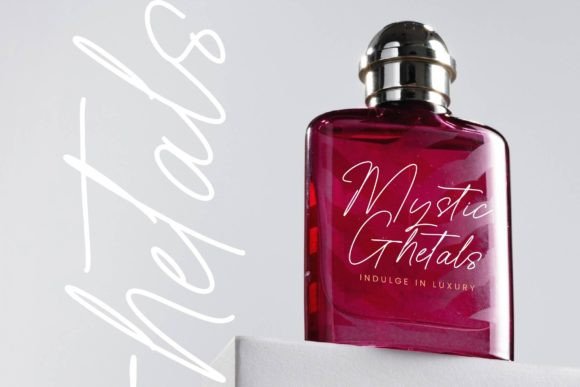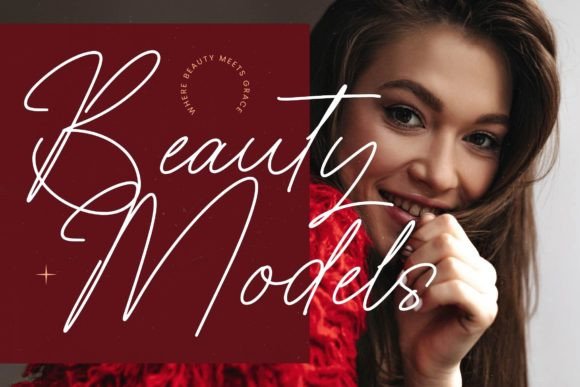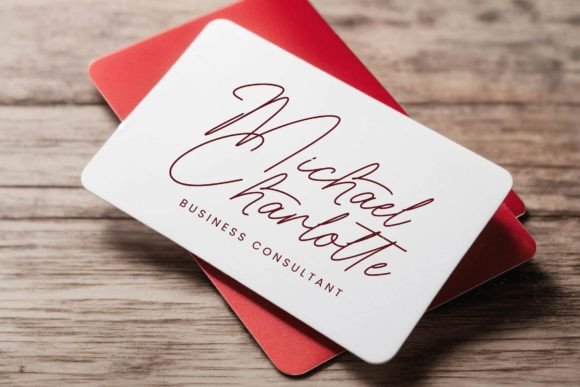
Introduction to Heritage Classic Font
As designers, we’ve all been there – staring at a blank page, trying to bring a vision to life. The cursor blinks, and the pressure mounts. But what if you had the perfect tool to unlock your creativity and make your project shine? Enter the Heritage Classic Font, a luxurious script font that’s about to revolutionize your design workflow.
Imagine having a versatile design resource that’s perfect for any project, from logos to homeware designs, product packaging to book covers. The Heritage Classic Font is that resource, offering a high-quality, transparent background that’s easy to use and customize. With its elegant, modern signature style, this font is sure to elevate any creative project and leave a lasting impression.
Key Features of Heritage Classic Font
- Unique Vintage Style: Heritage Classic Font features a distinctive vintage aesthetic, perfect for creative projects requiring a nostalgic feel.
- High-Quality Design: This font is designed with precision, offering crisp and clear typography that’s ideal for a wide range of applications.
- Transparent Background: The font comes with a transparent background, allowing for easy layering and seamless integration with other design elements.
- Resolution: This font is designed at 300 DPI, making it suitable for print and digital applications at high resolutions.
- Size: The font family includes a range of weights and styles, from Light to Bold, allowing designers to choose the perfect fit for their creative project.
Honest Review: Heritage Classic Font
One of the standout features of this font is its high-quality design. The clear lines and elegant curves make it perfect for creative projects that require a touch of sophistication. I especially love using it for headings and titles, as it adds a level of sophistication to any design.
- High-quality design with clear lines and elegant curves
- Perfect for creative projects that require a touch of sophistication
- Limited character set, may not be suitable for long blocks of text
- No transparent background option, may not be ideal for designs that require a background overlay
Overall, I’m impressed with the Heritage Classic Font. It’s a great addition to any design library, and its high-quality design makes it perfect for creative projects. While it may have some limitations, it’s definitely worth considering for your next design project.
The Heritage Classic Font is perfect for a variety of designs, including:
- Brochures and flyers
- Social media graphics and advertisements
- Wedding invitations and event materials